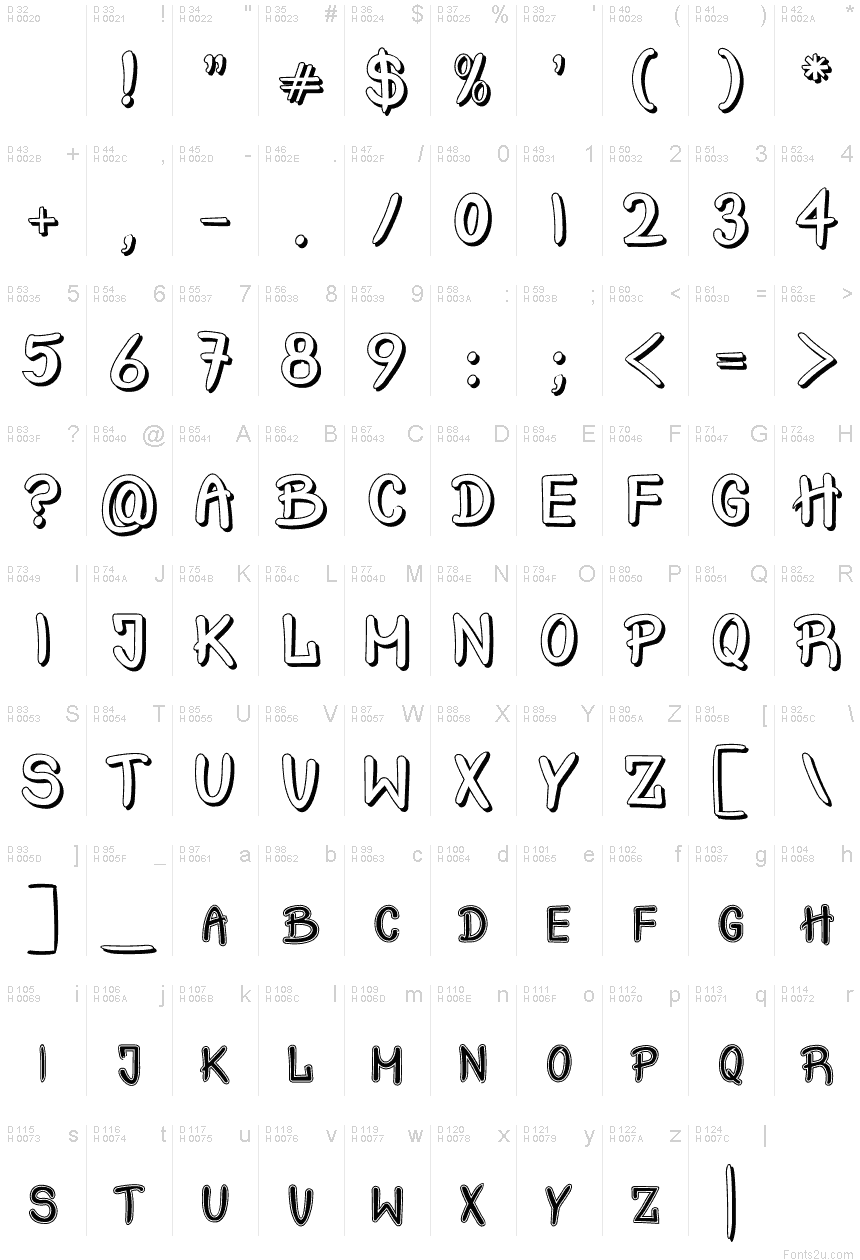
Crash Test Shadow
Crash Test is a bold, dynamic font that exudes a sense of energy and playfulness. Designed by Antrax, this display font boasts a distinct shadow effect, creating depth and dimension. The comic-inspired style, with its playful, irregular strokes, lends the text a whimsical, eye-catching appeal.
This font's versatility makes it well-suited for a range of design applications, from attention-grabbing headlines and posters to impactful logos and branding materials. Its striking visual presence commands attention, making it an excellent choice for projects that seek to capture a sense of excitement and adventure.